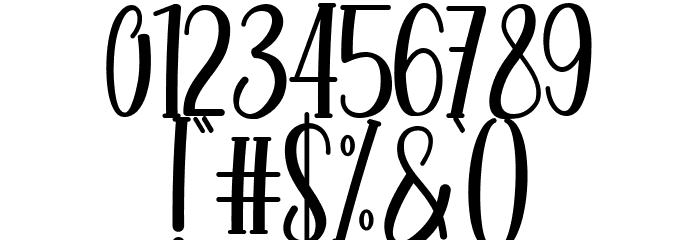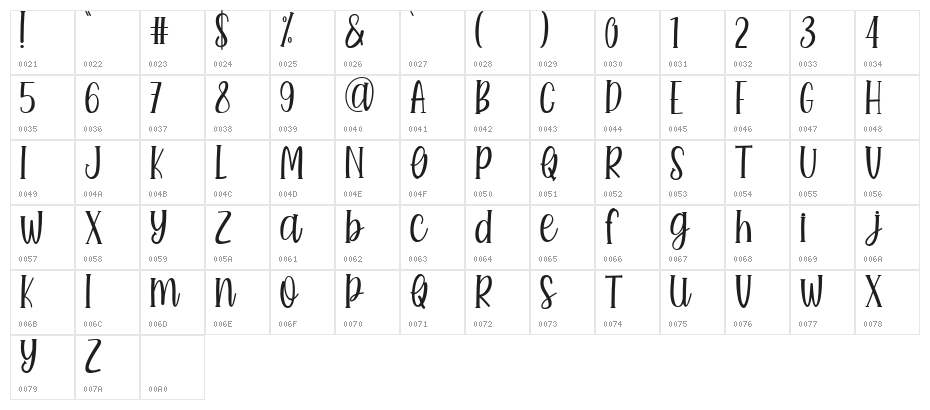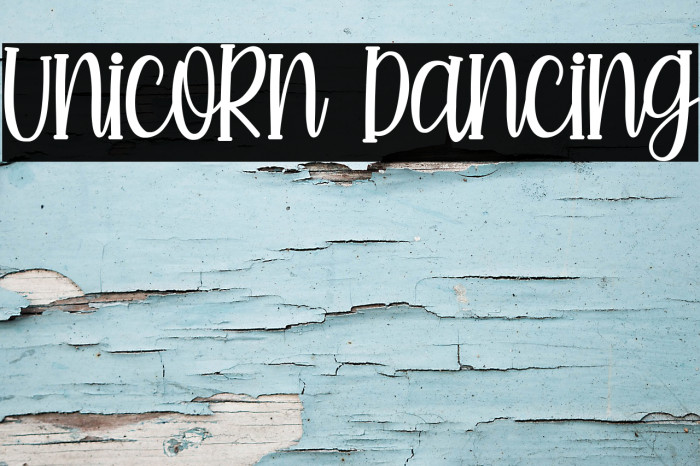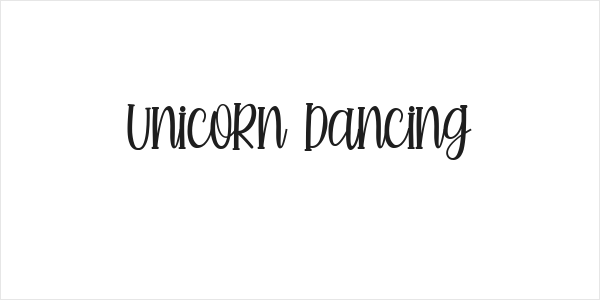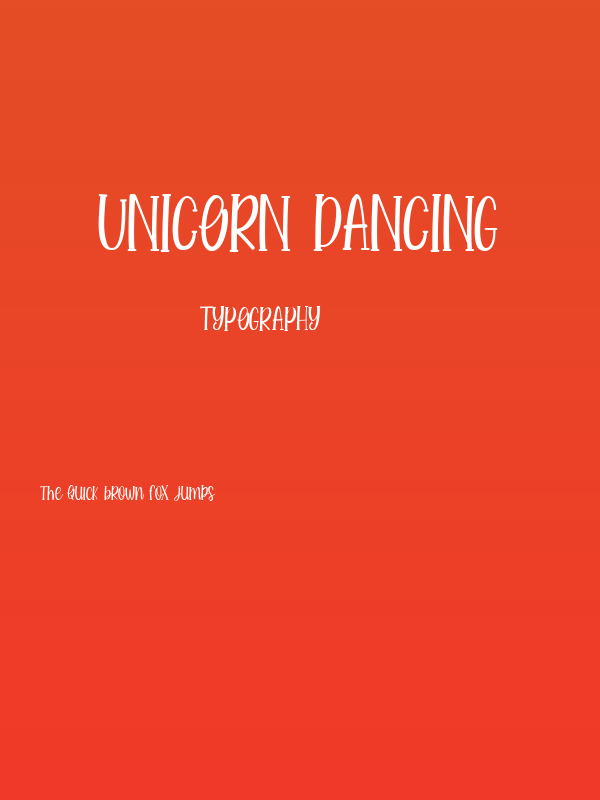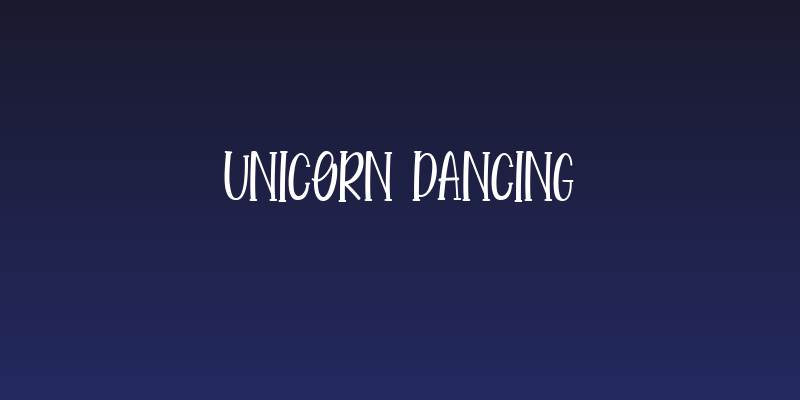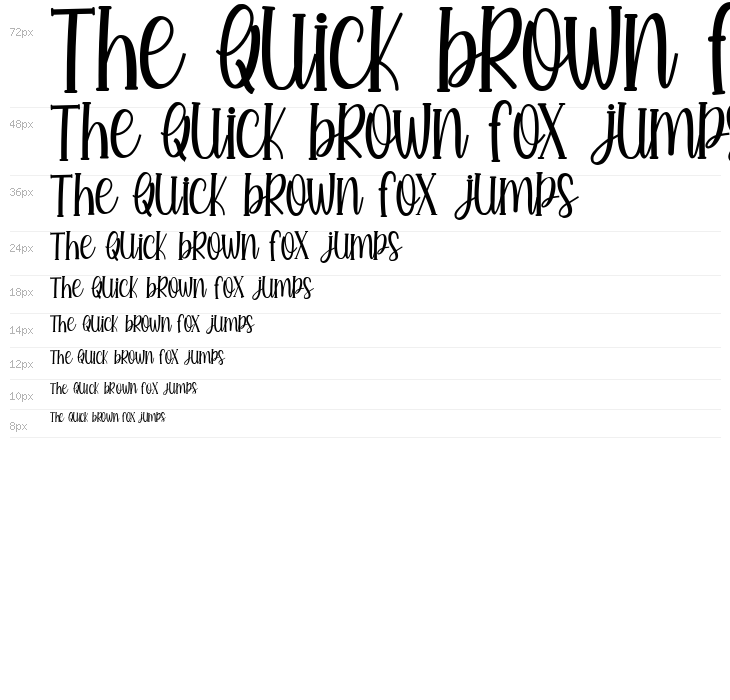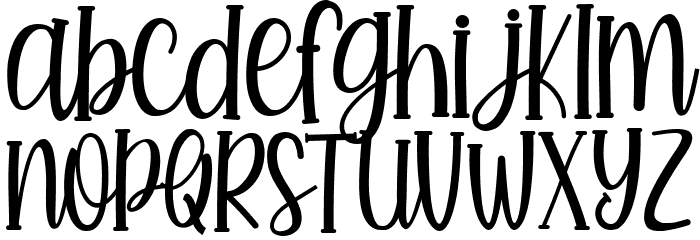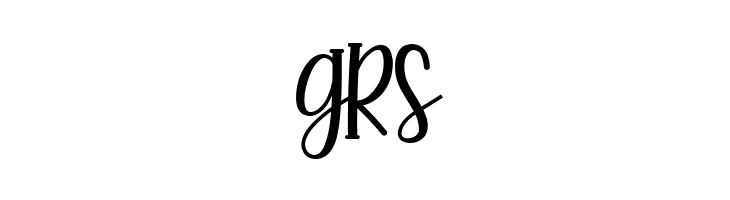
Unicorn Dancing Font
Unicorn Dancing Description
This font features a playful and whimsical design, characterized by its tall, narrow letters with a slight slant, giving it a handwritten feel. The strokes are smooth and consistent, with a moderate thickness that adds to its legibility. The uppercase letters are bold and prominent, while the lowercase letters maintain a fluid and connected style, enhancing its casual and friendly appearance. The numbers and special characters follow the same playful aesthetic, making it versatile for various creative projects.
Overall StylePlayful
Proposed ProjectsIdeal for greeting cards, children's books, playful branding, and social media graphics.